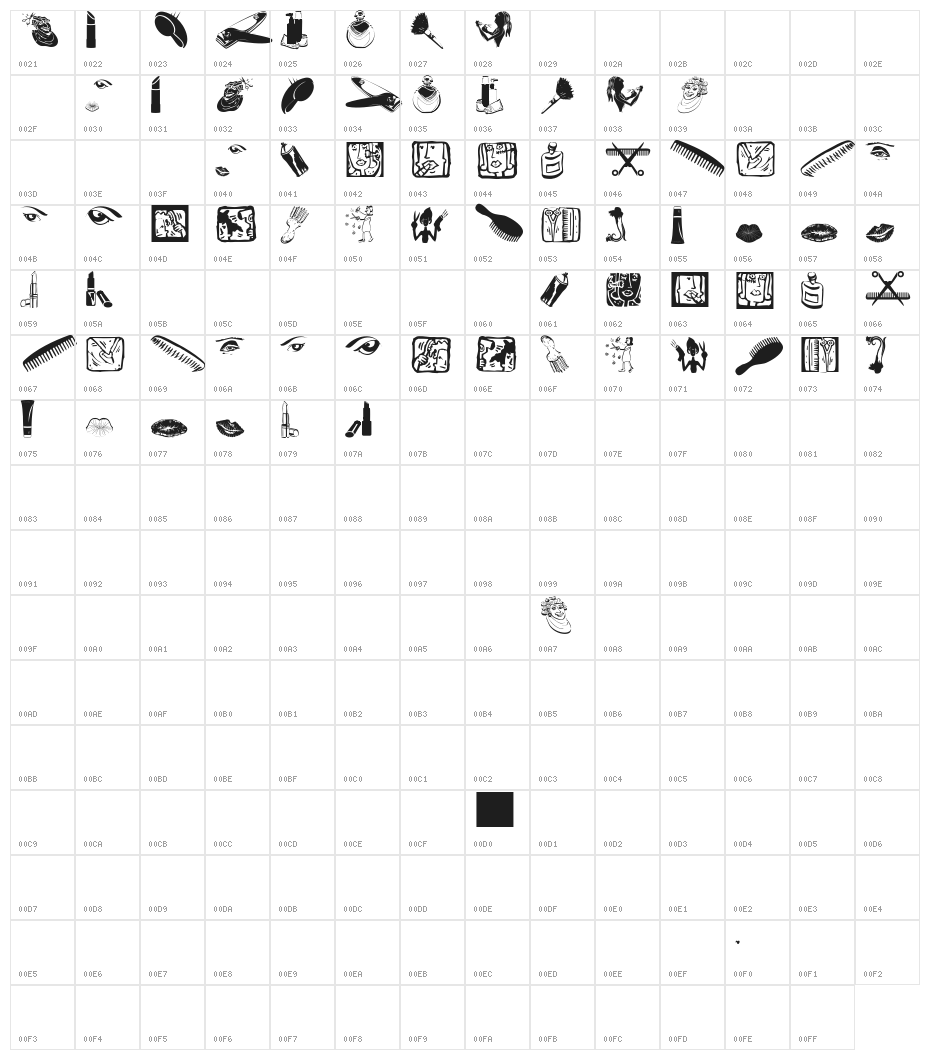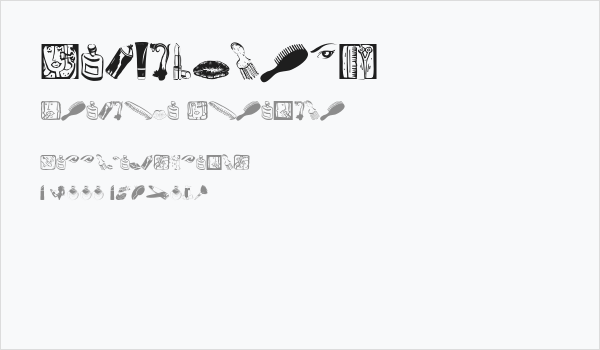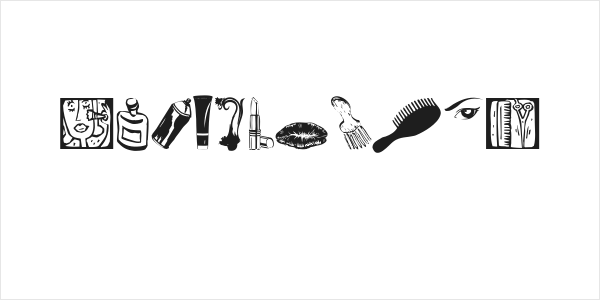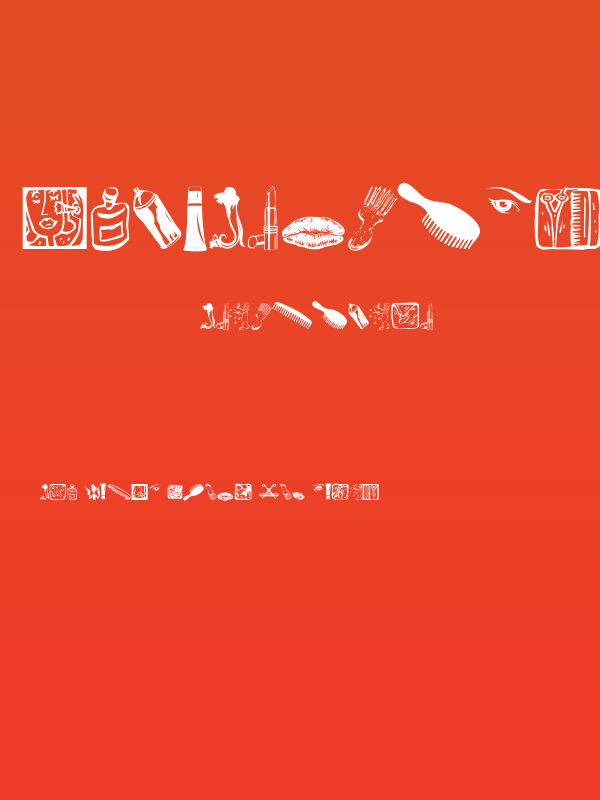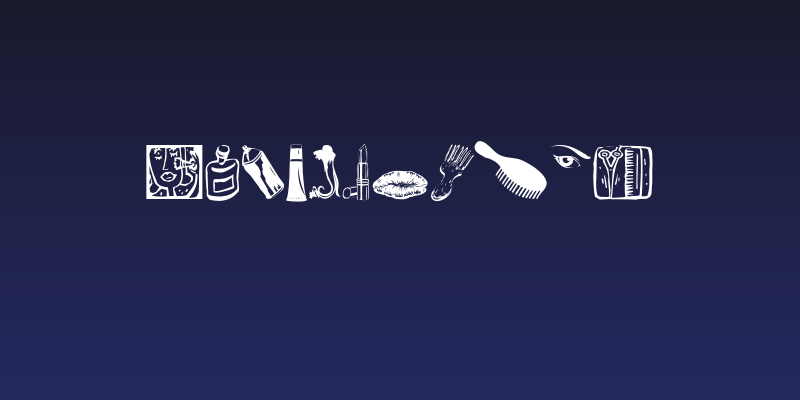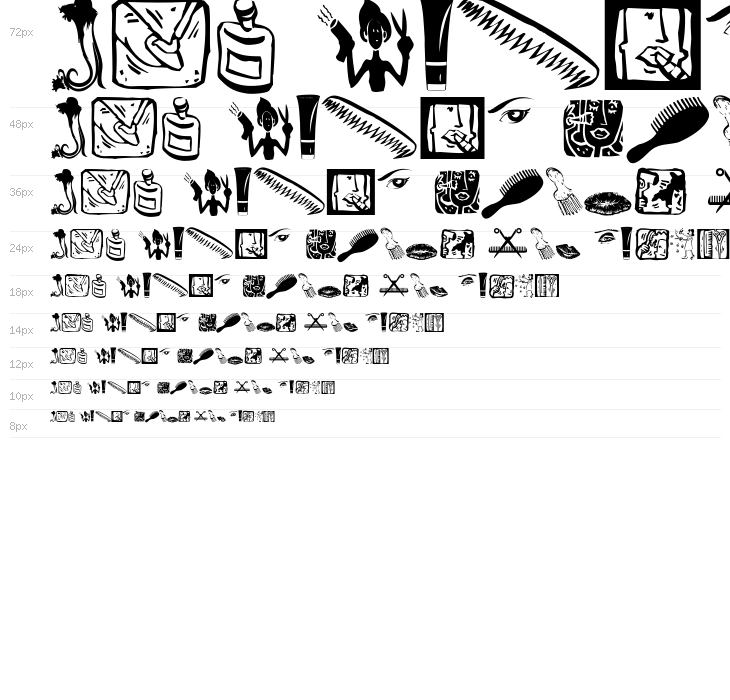
BeautyWorks Font
BeautyWorks Description
A decorative, pictogram-based font featuring beauty and salon-themed illustrations such as faces, makeup, hair tools, and accessories. Each character is represented by a unique, detailed black-and-white drawing, making it highly visual and thematic.
| Overall Style | Decorative, Thematic, Playful |
| Use Case | Logos, Headlines, Posters, Themed Graphics |
| Proposed Projects | Beauty salon branding, spa menus, event invitations, posters, themed social media graphics. |